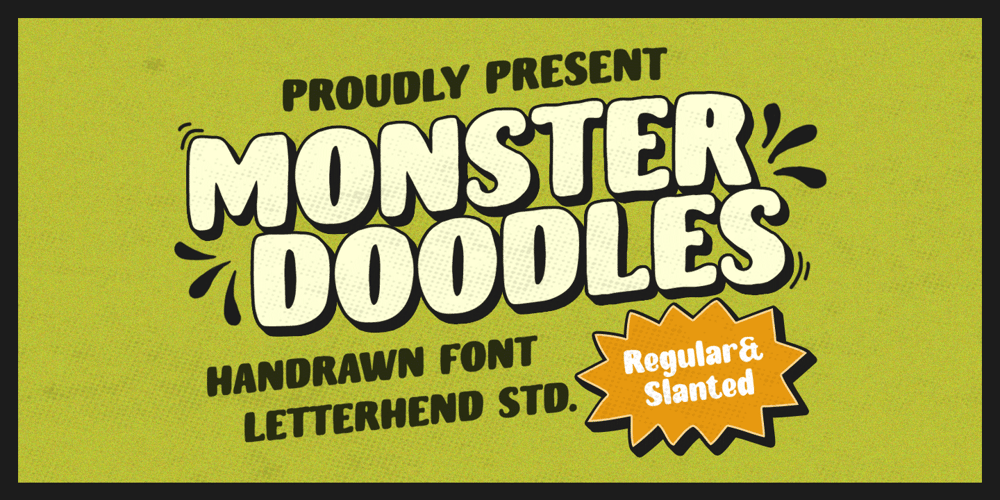
Monster Doodles Font Family was designed by Hendry Juanda and published by Letterhend. Monster Doodles contains 2 styles and family package options. Monster Doodles is a hand drawn font with bold letterform. You can playaround to fit the form using uppercase and lowercase mode. This font perfectly made to be applied especially in logo, and the other various formal forms such as invitations, labels, logos, magazines, books, greeting / wedding cards, packaging, fashion, make up, stationery, novels, labels or any type of advertising purpose.Features : Uppercase & lowercase Numbers and punctuation Alternates & Ligatures Multilingual PUA encoded We highly recommend using a program that supports OpenType features and Glyphs panels like many of Adobe apps and Corel Draw, so you can see and access all Glyph variations.